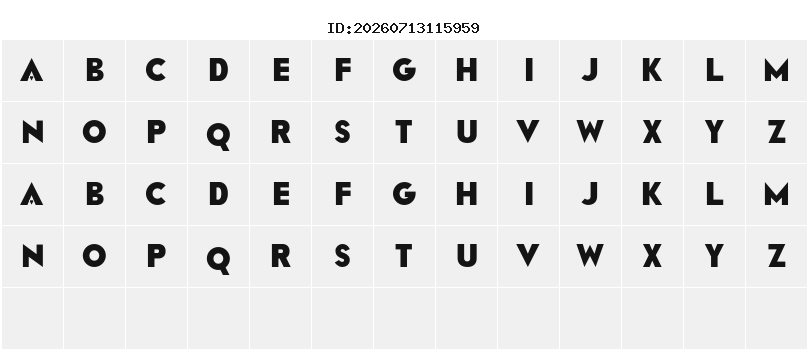
RAINFALL Preview
• Font Name: RAINFALL
• Font Style: Black
• Full Font Name: RAINFALL-Black
• PostScript Name: RAINFALL-Black
• Character Count: 53
About RAINFALL.otf
RAINFALL.otf is a modern, elegant sans-serif font designed for ultimate readability and visual harmony. Perfect for branding, headlines, web design, and print materials.